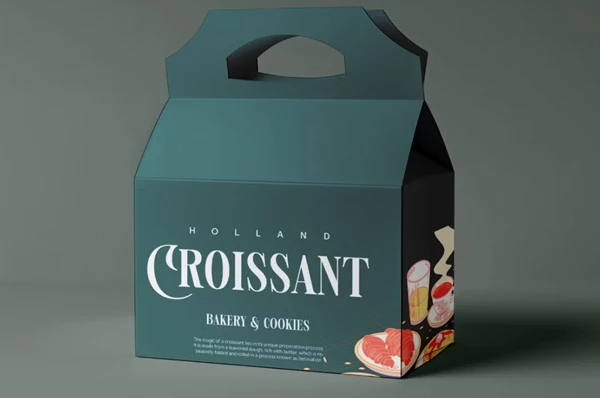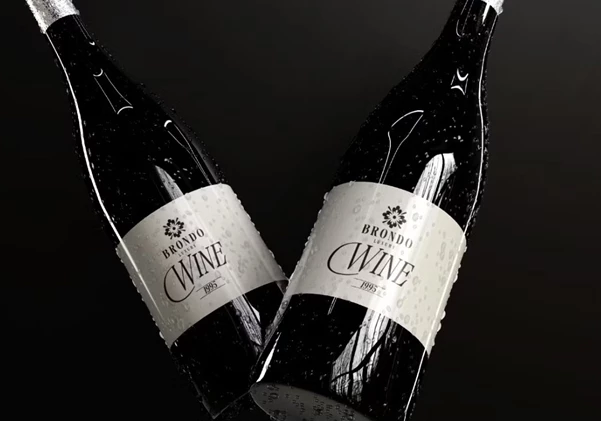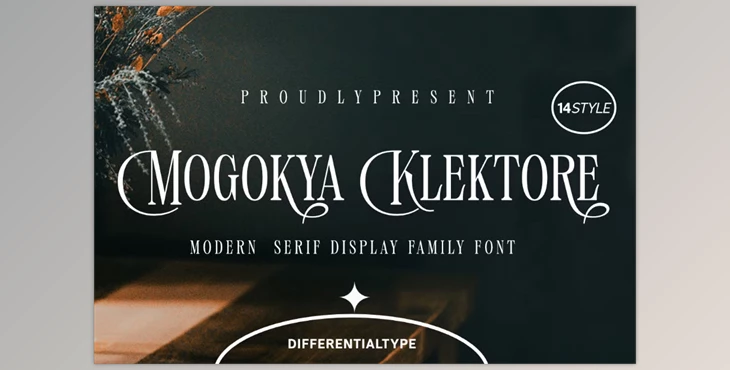
Mogokya Klektore Font:
Mogokya Klektore is a serif display font that combines luxurious style with modernity. This 14-font family consists of 7 weights with matching italics. The casual yet modern touch of its uppercase and lowercase letters gives the fonts a distinctive appearance.
This makes it the perfect modern yet classy font for your project designs. Mogokya Klektore is widely recognized as a strong and versatile font. It’s ideal for professional design work, including product design, branding, logos, headlines, book covers, titles, posters, and much more. Using Mogokya Klektore in your designs will add a touch of high-end class, making your work look and feel exclusive and unique.